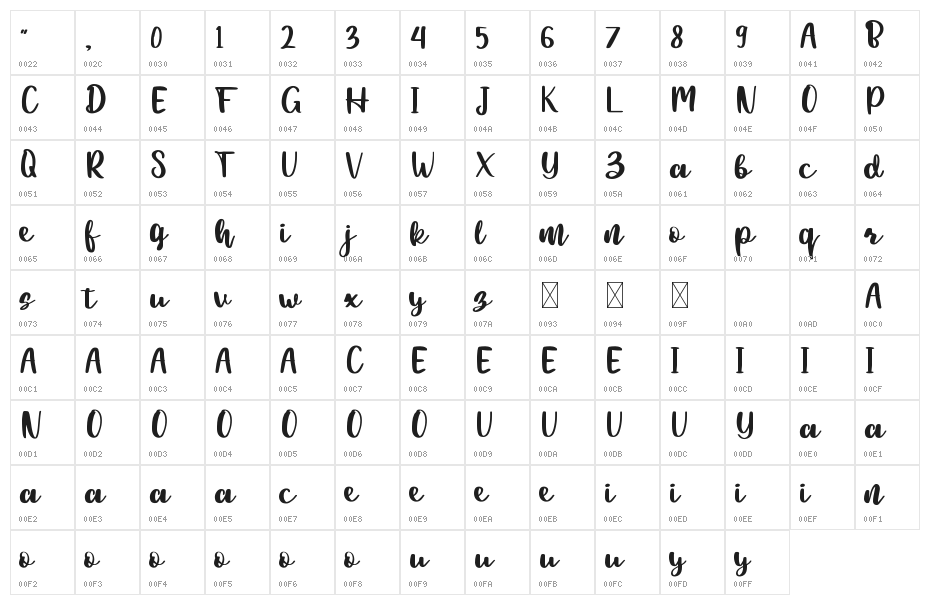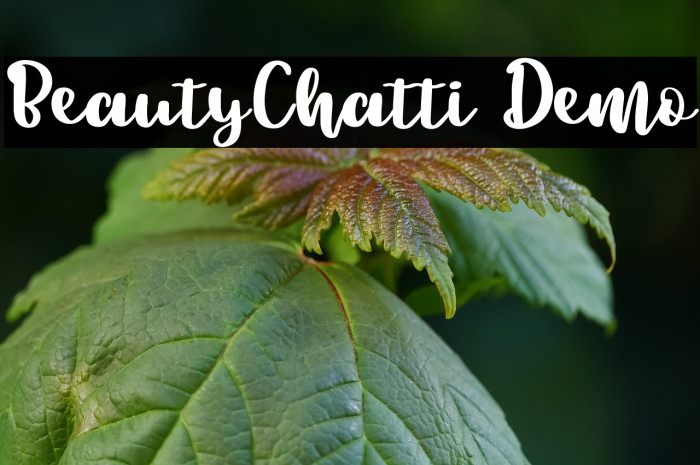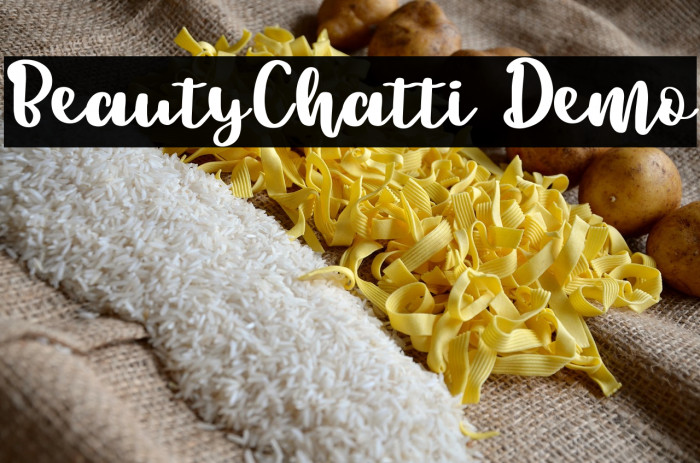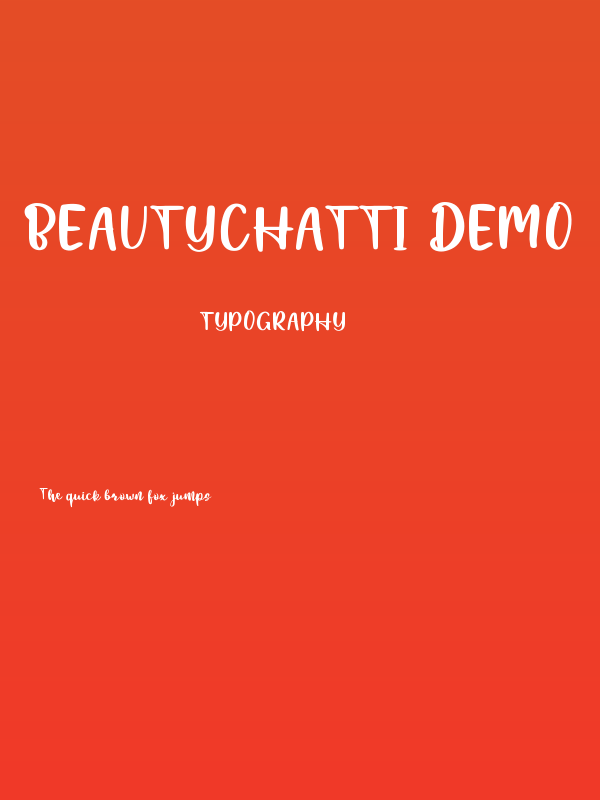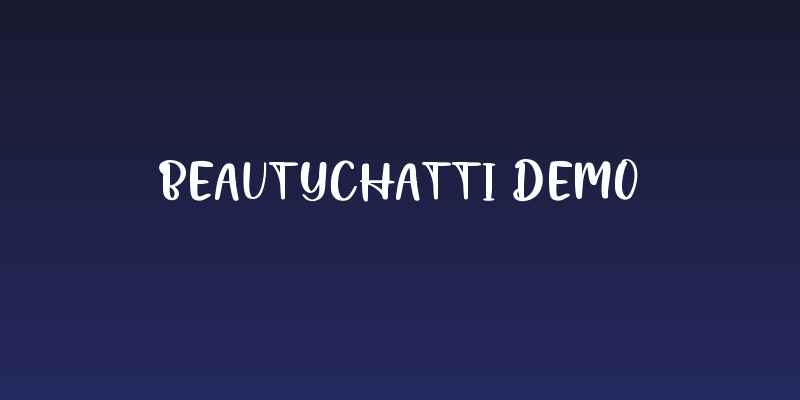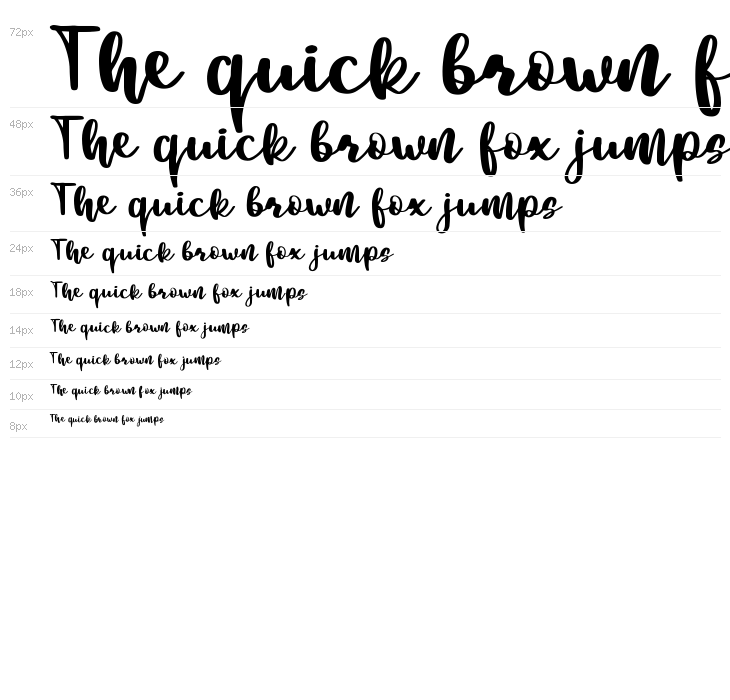
BeautyChatti Demo Font
BeautyChatti Demo Description
This font features a playful and bold script style with a hand-drawn appearance. The uppercase letters are slightly taller and more structured, while the lowercase letters exhibit a flowing, cursive design. The strokes are thick and consistent, providing a strong visual impact. The numbers maintain the same boldness, ensuring readability. Special characters are included, matching the overall style with a whimsical touch. The font's design is both modern and artistic, making it suitable for creative projects.
| Proposed Projects | Ideal for branding, invitations, greeting cards, and social media graphics. |